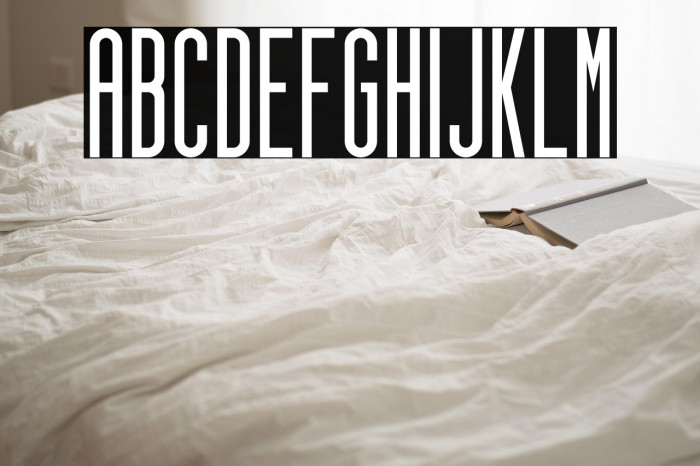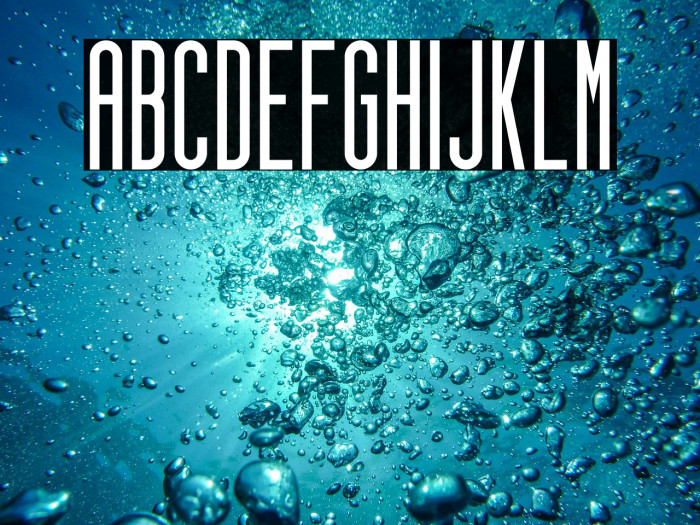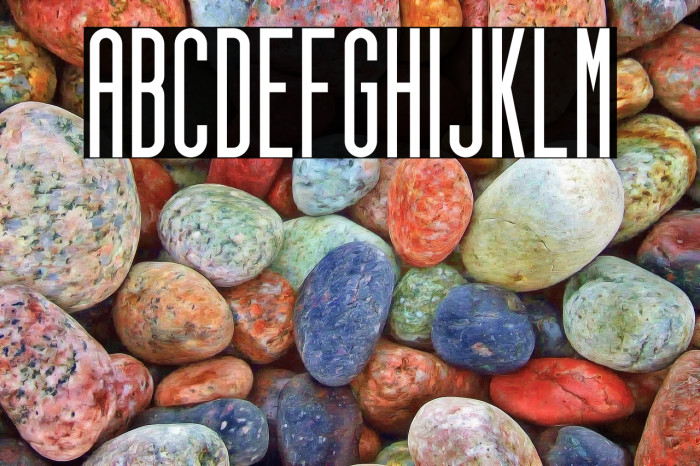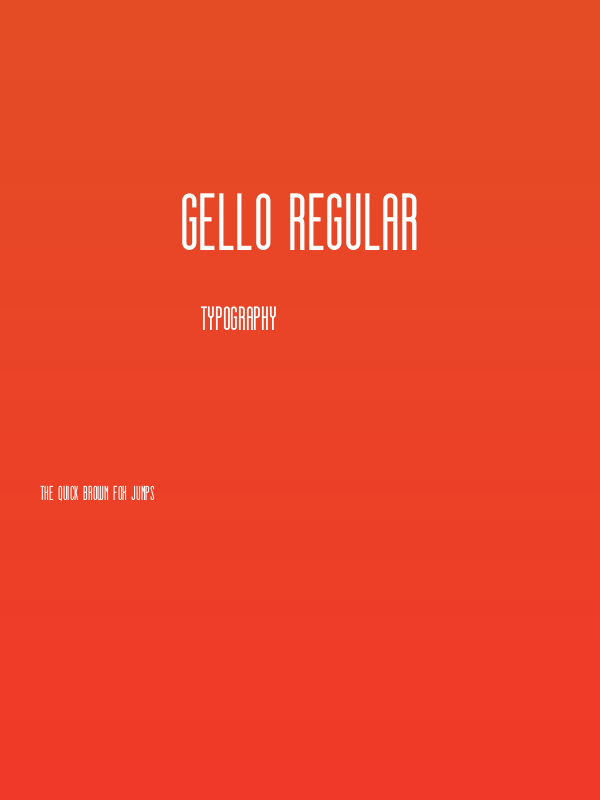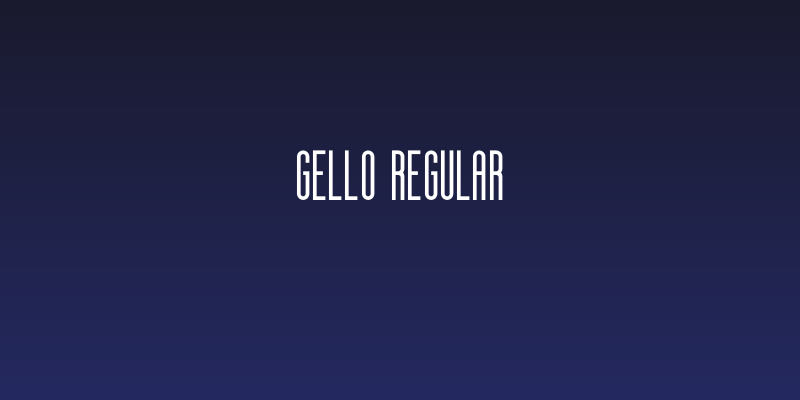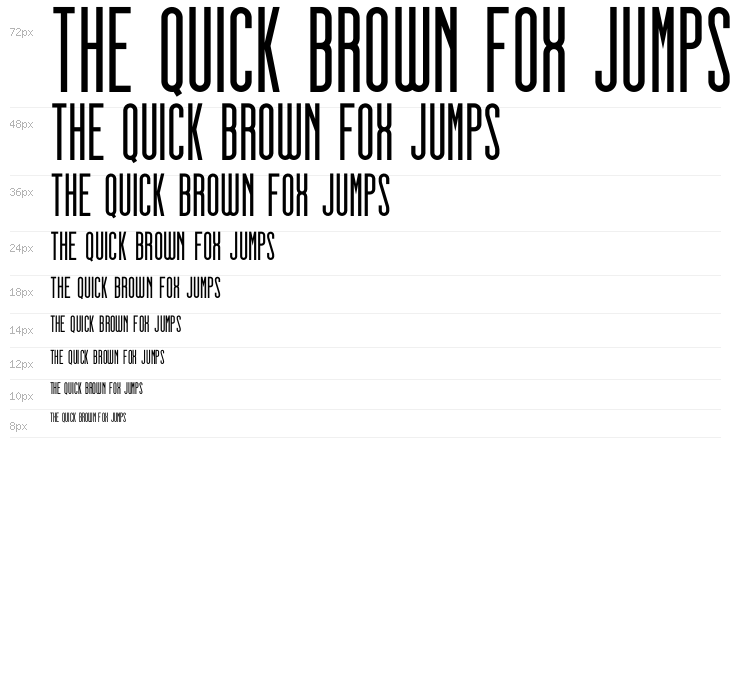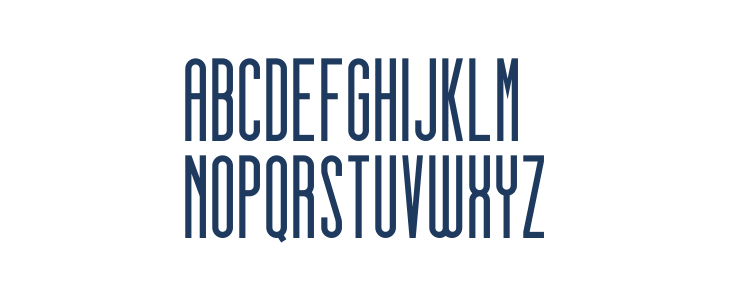
gello regular Font
gello regular Description
This font features a tall, narrow design with a modern and sleek appearance. The characters are elongated, giving them a distinctive and elegant look. The vertical alignment is consistent, and the strokes are uniform in thickness, contributing to a clean and polished aesthetic. The uppercase and lowercase letters maintain a cohesive style, while the numerals and special characters are designed to match the overall theme. This font's unique structure makes it stand out, offering a contemporary feel that is both stylish and functional.
| Proposed Projects | Ideal for fashion branding, magazine headers, modern posters, and minimalist design projects. |